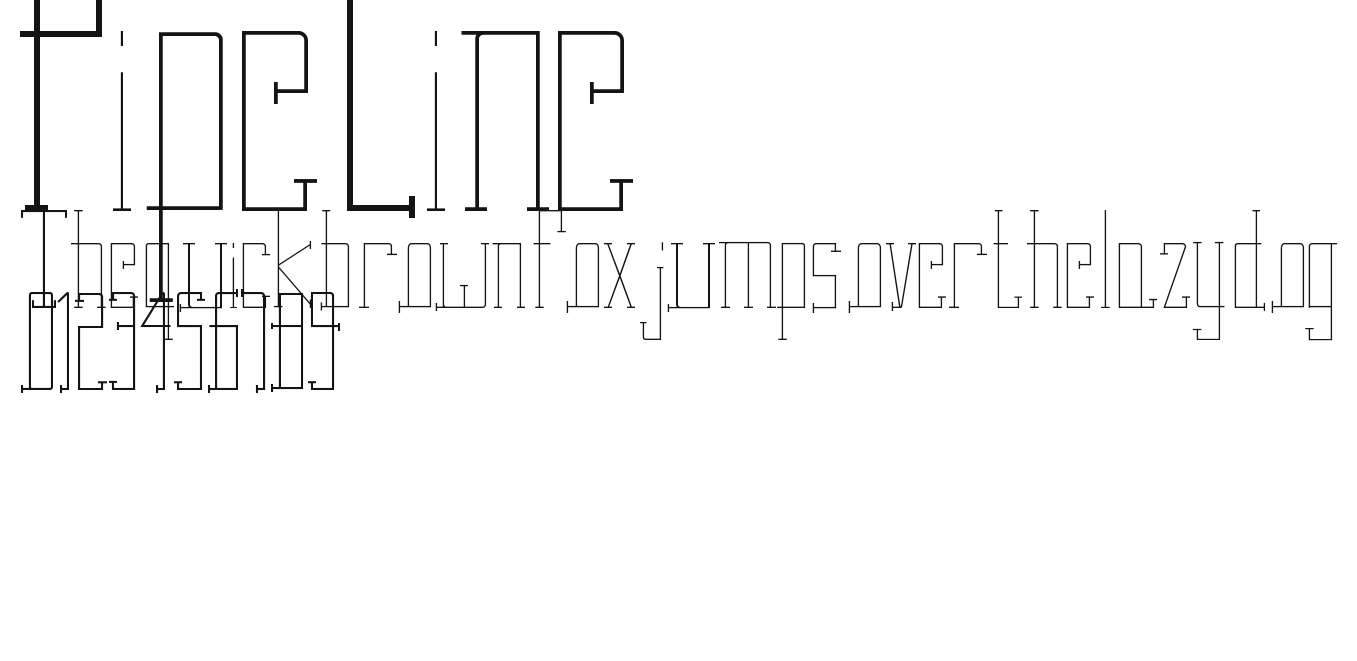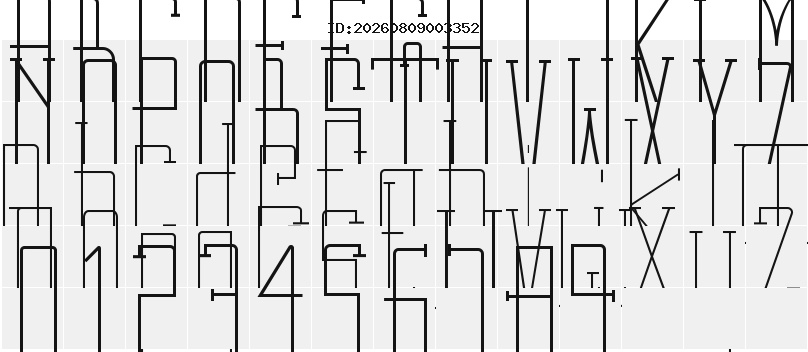
About Pipe Line.ttf
Pipe Line.ttf is a modern, elegant sans-serif font designed for ultimate readability and visual harmony. Perfect for branding, headlines, web design, and print materials.